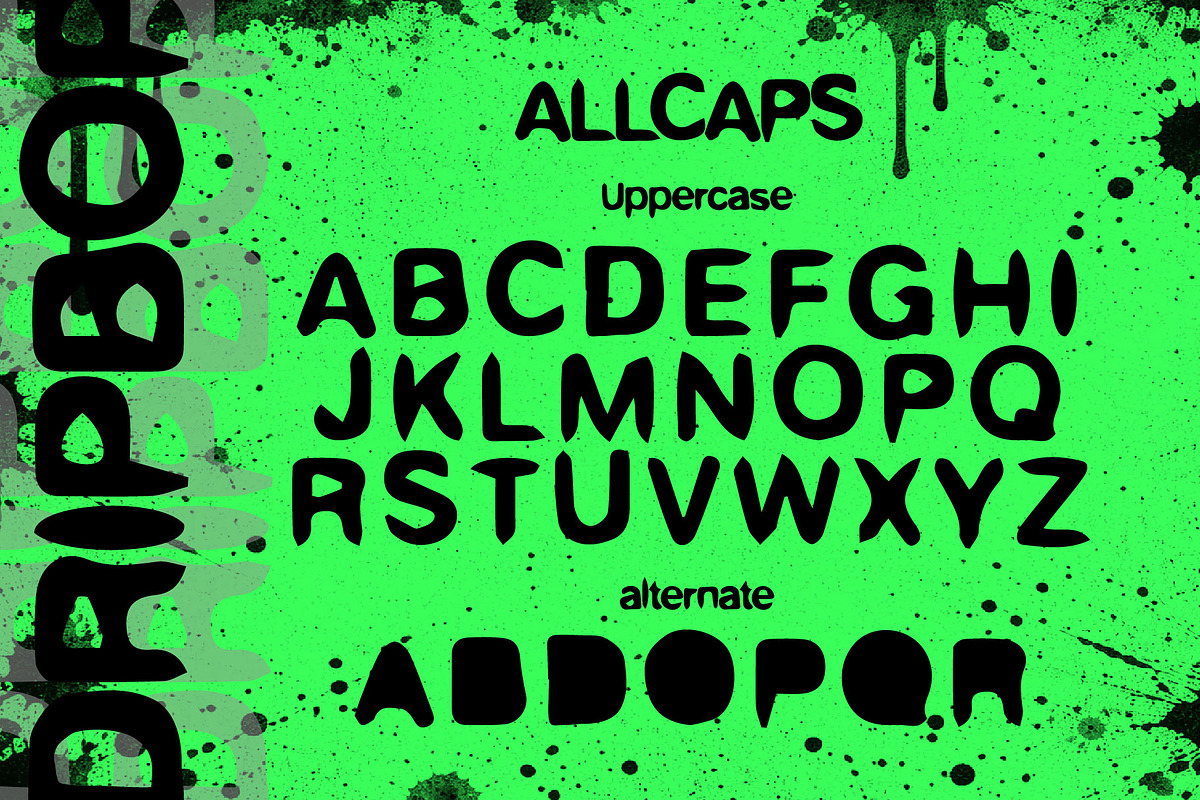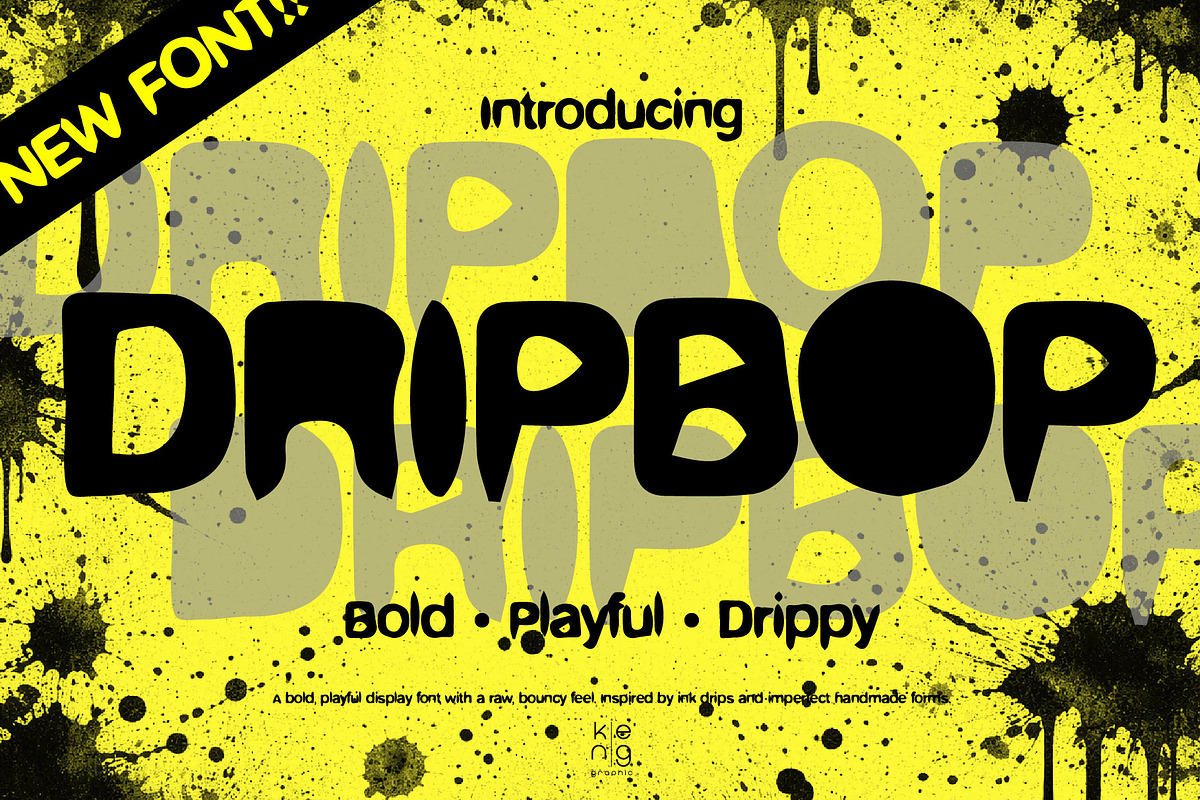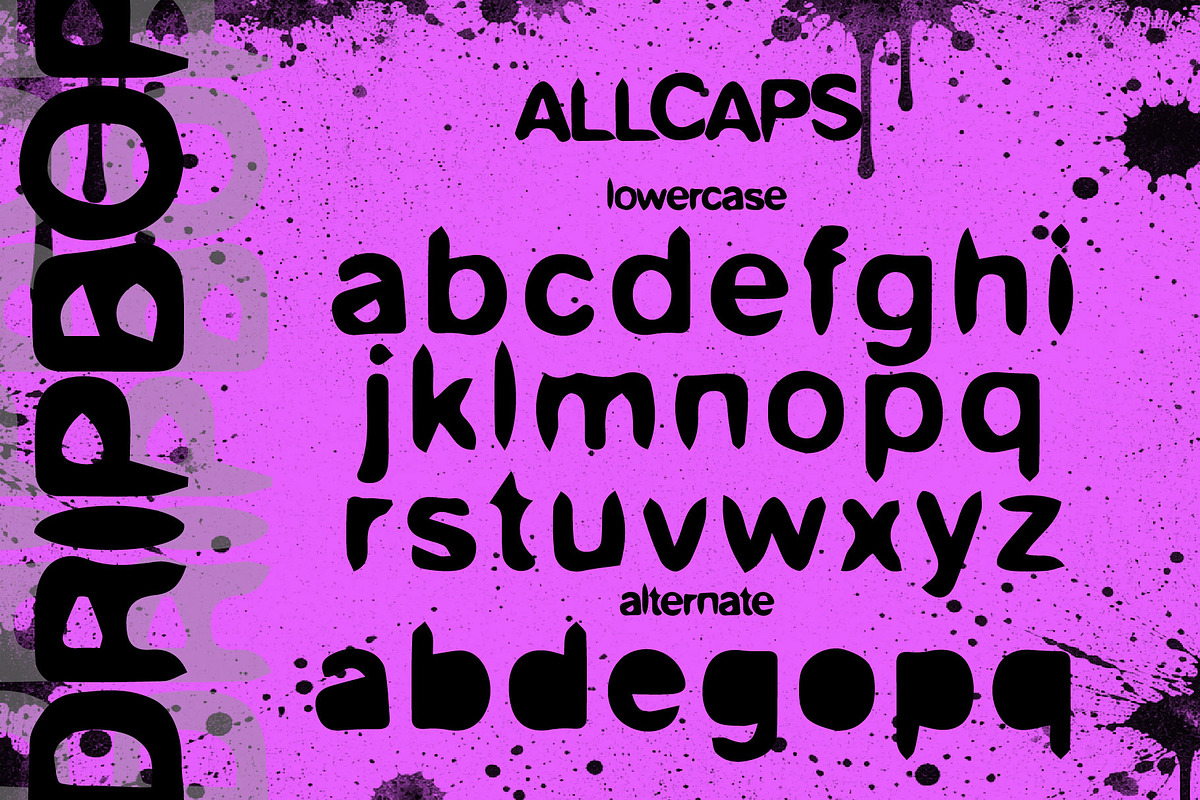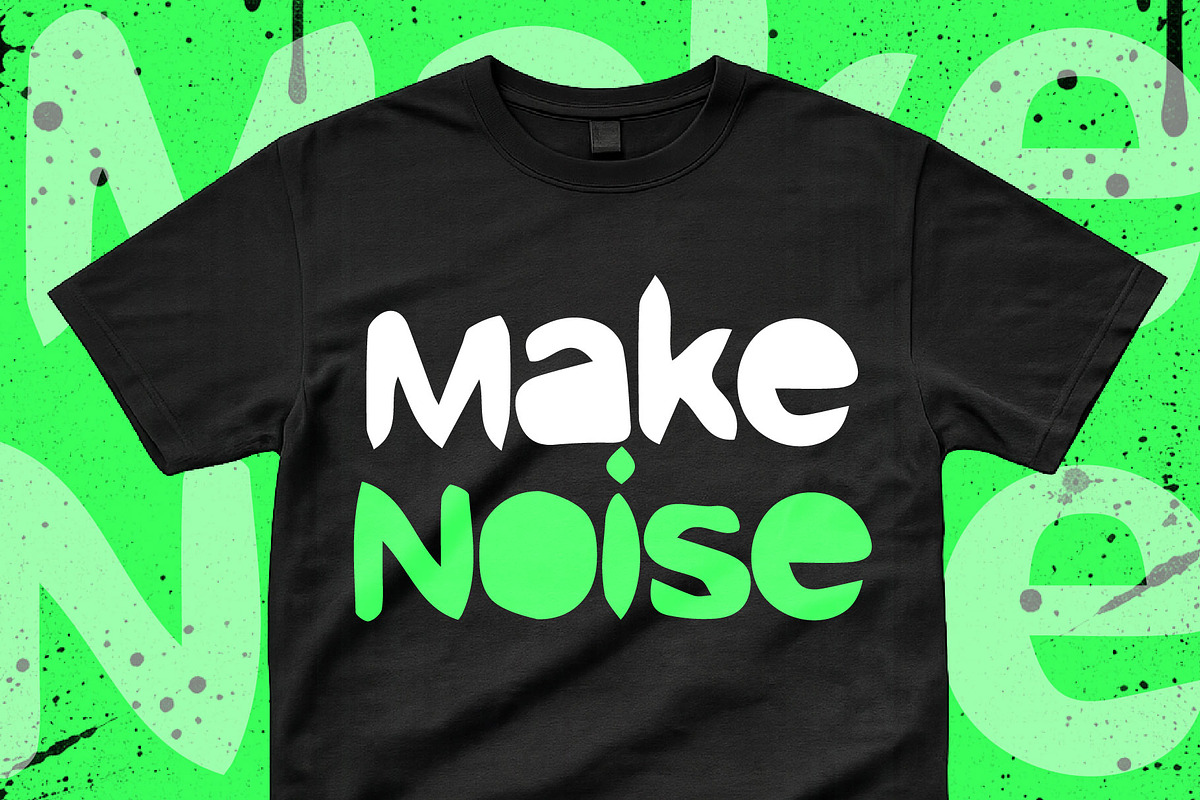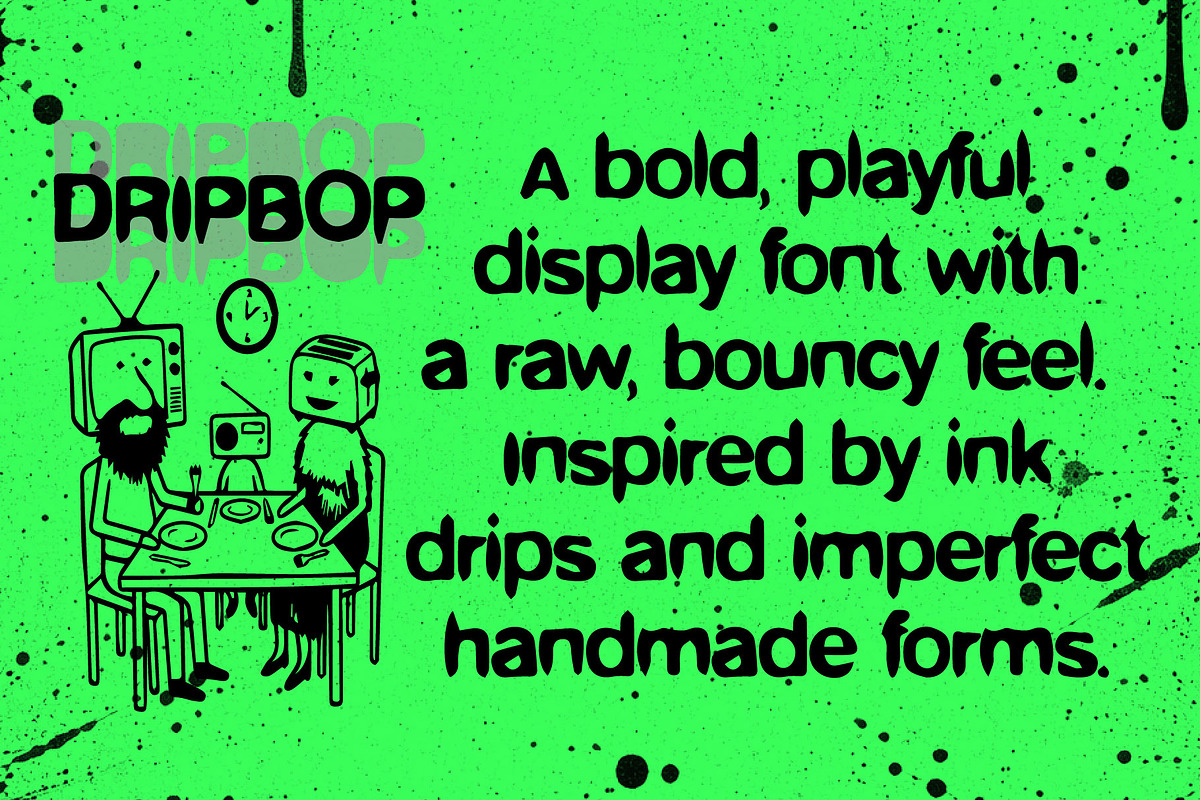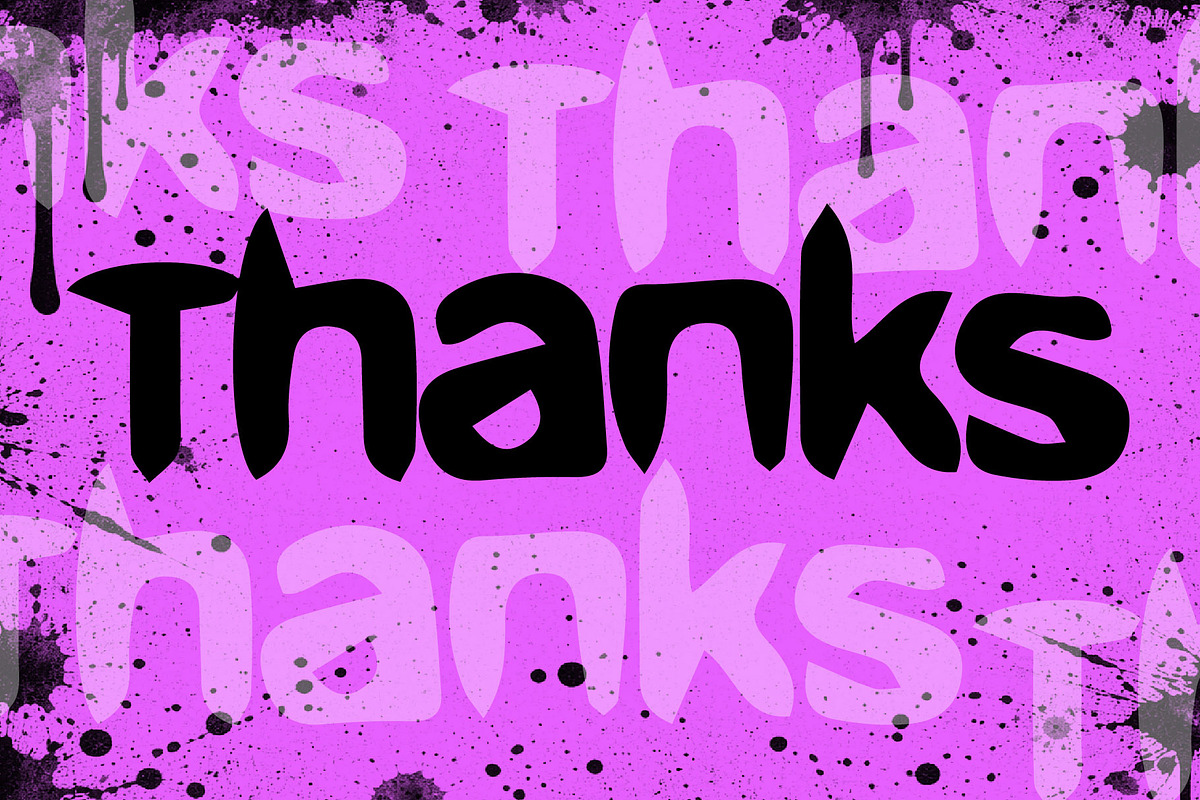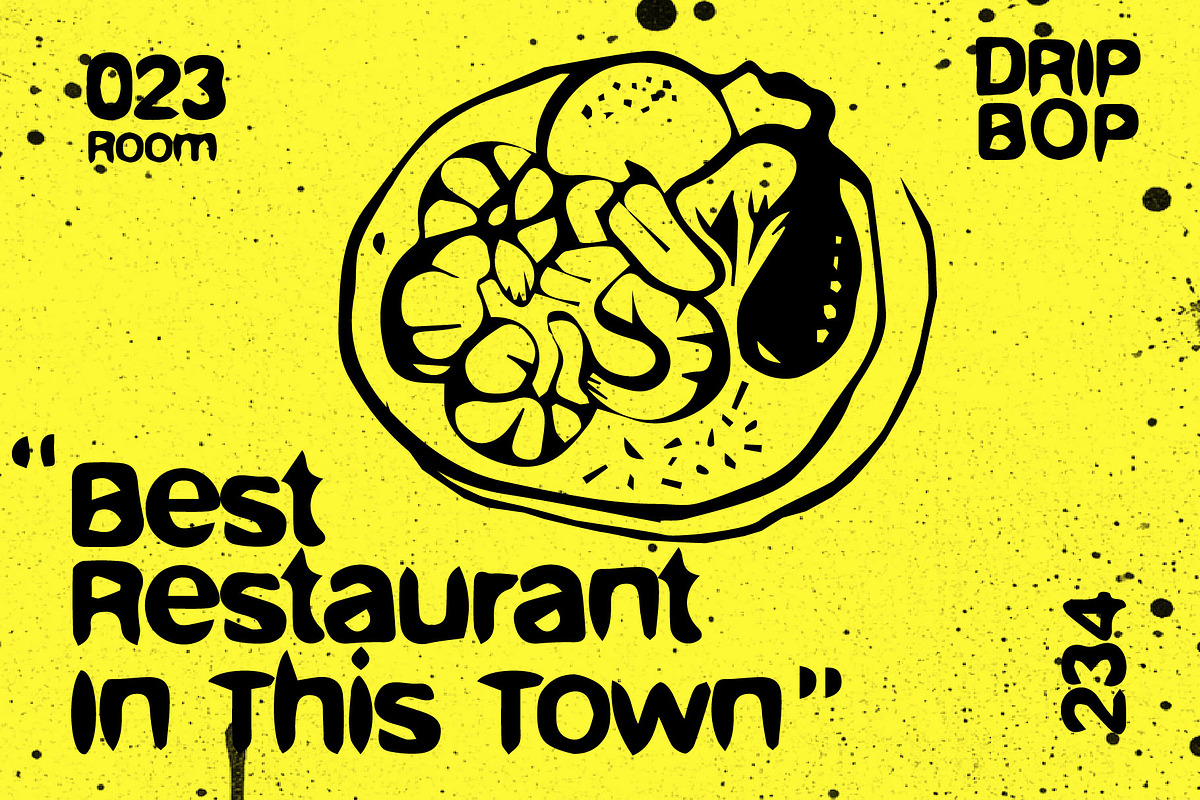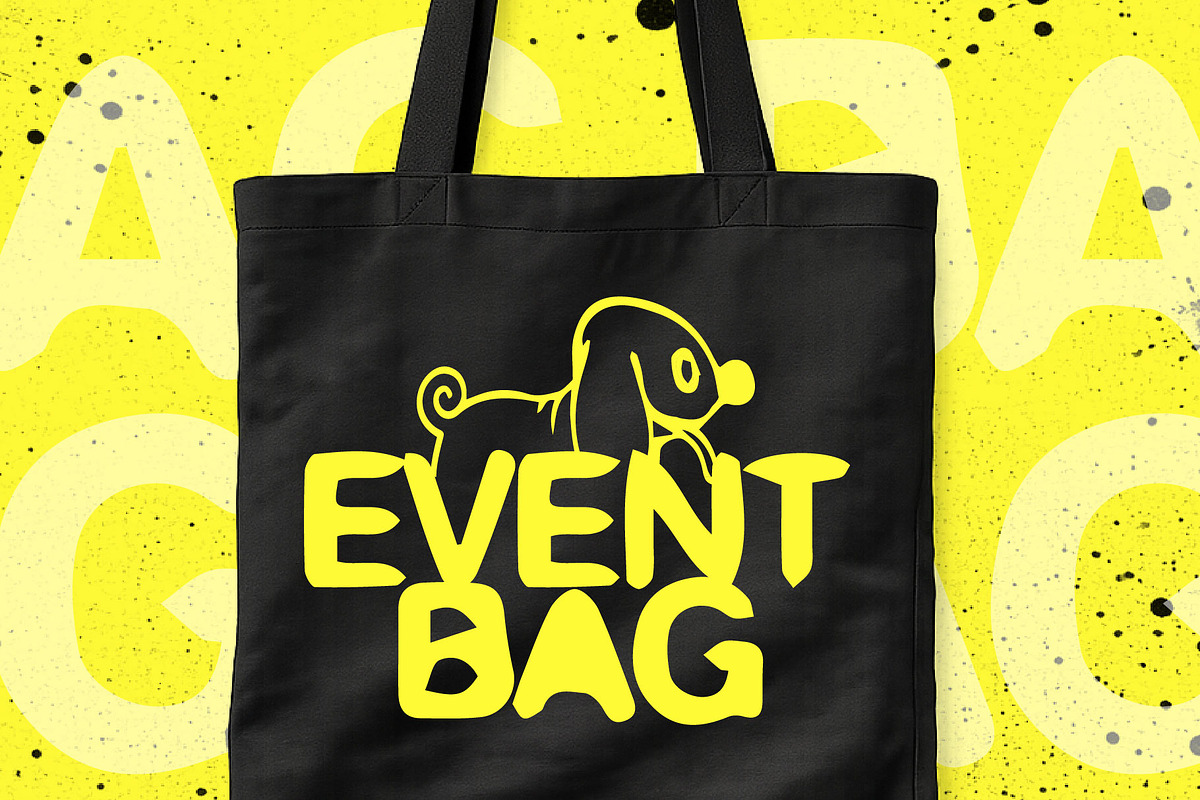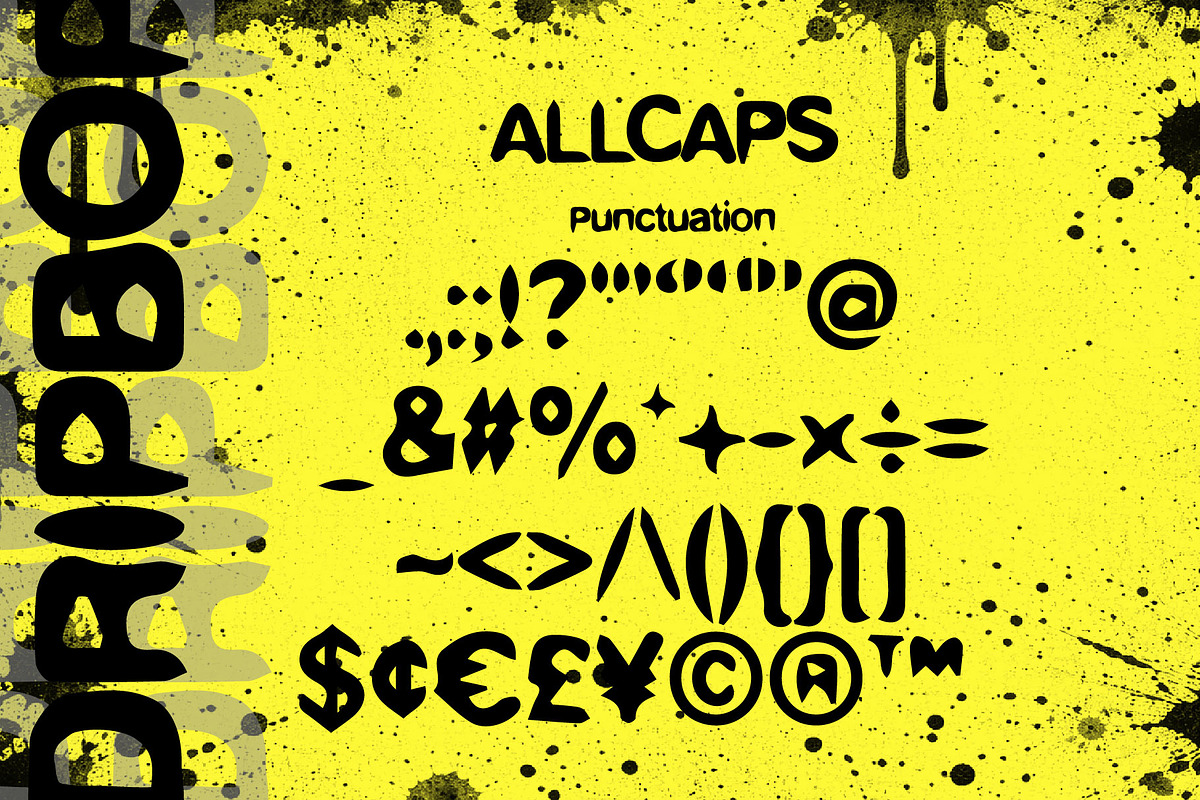
DRIPBOP FONT
Immerse yourself in the bold vitality of DRIPBOP— a peppy display font delivering a distinct drippy aesthetic. With its perfectly imperfect, globule-inspired structures, this font exudes a lively, energetic vibe that seizes the viewer's attention. Its uniquely whimsical design and rhythm radiates a captivating dynamism, making it an unforgettable visual experience. DRIPBOP's enlivened appeal is sure to add a splash of vivacity to any design project.